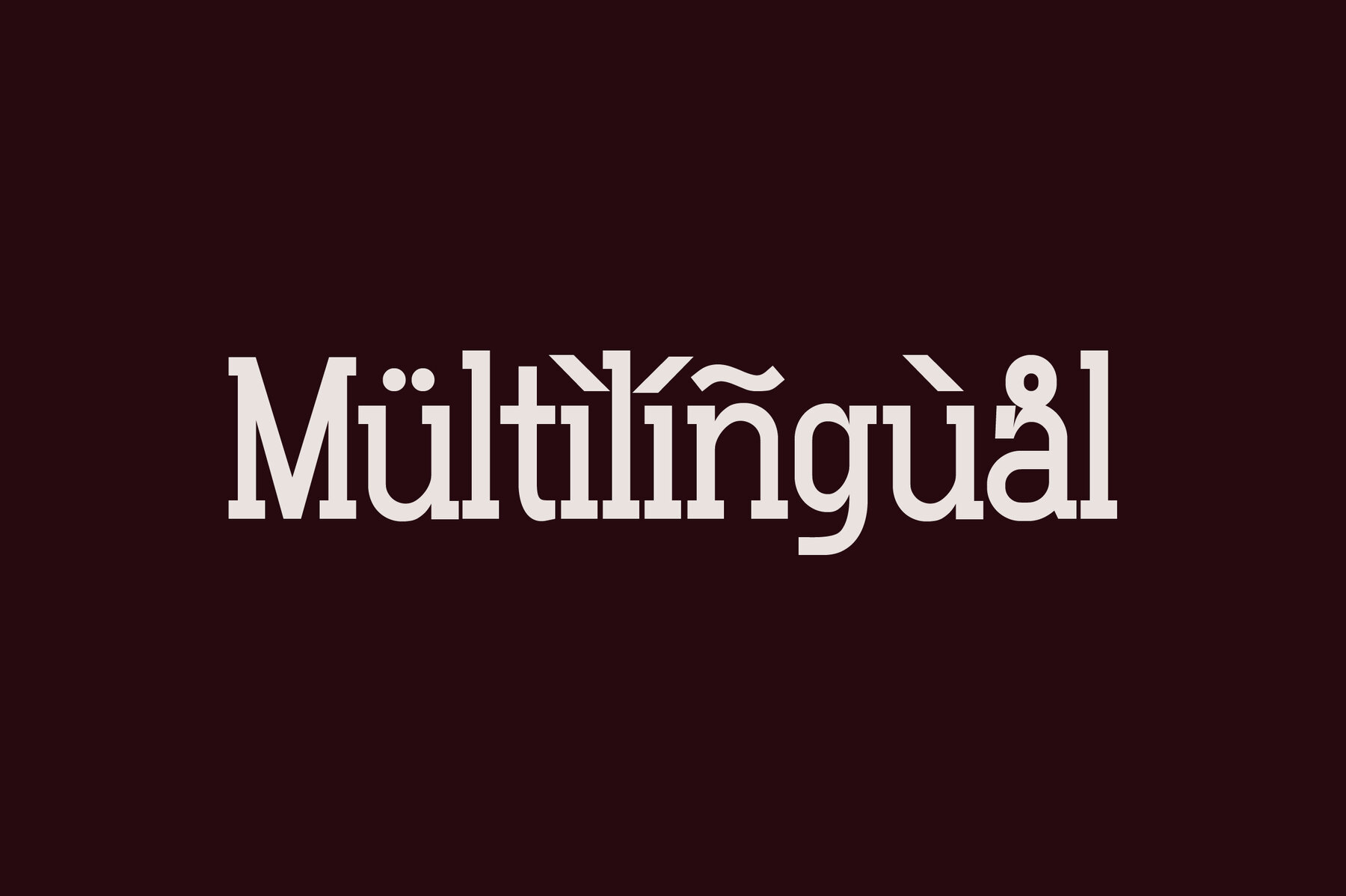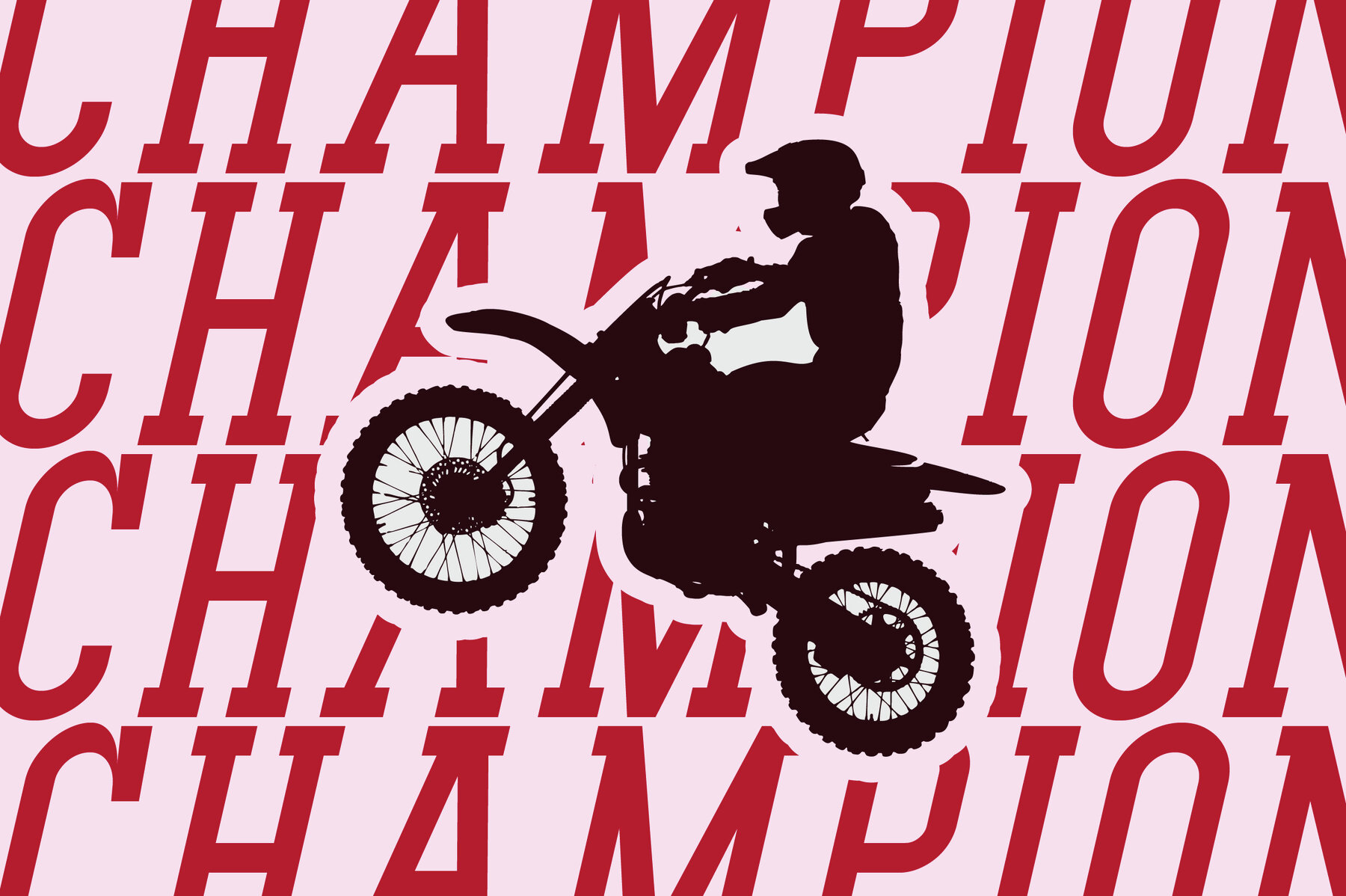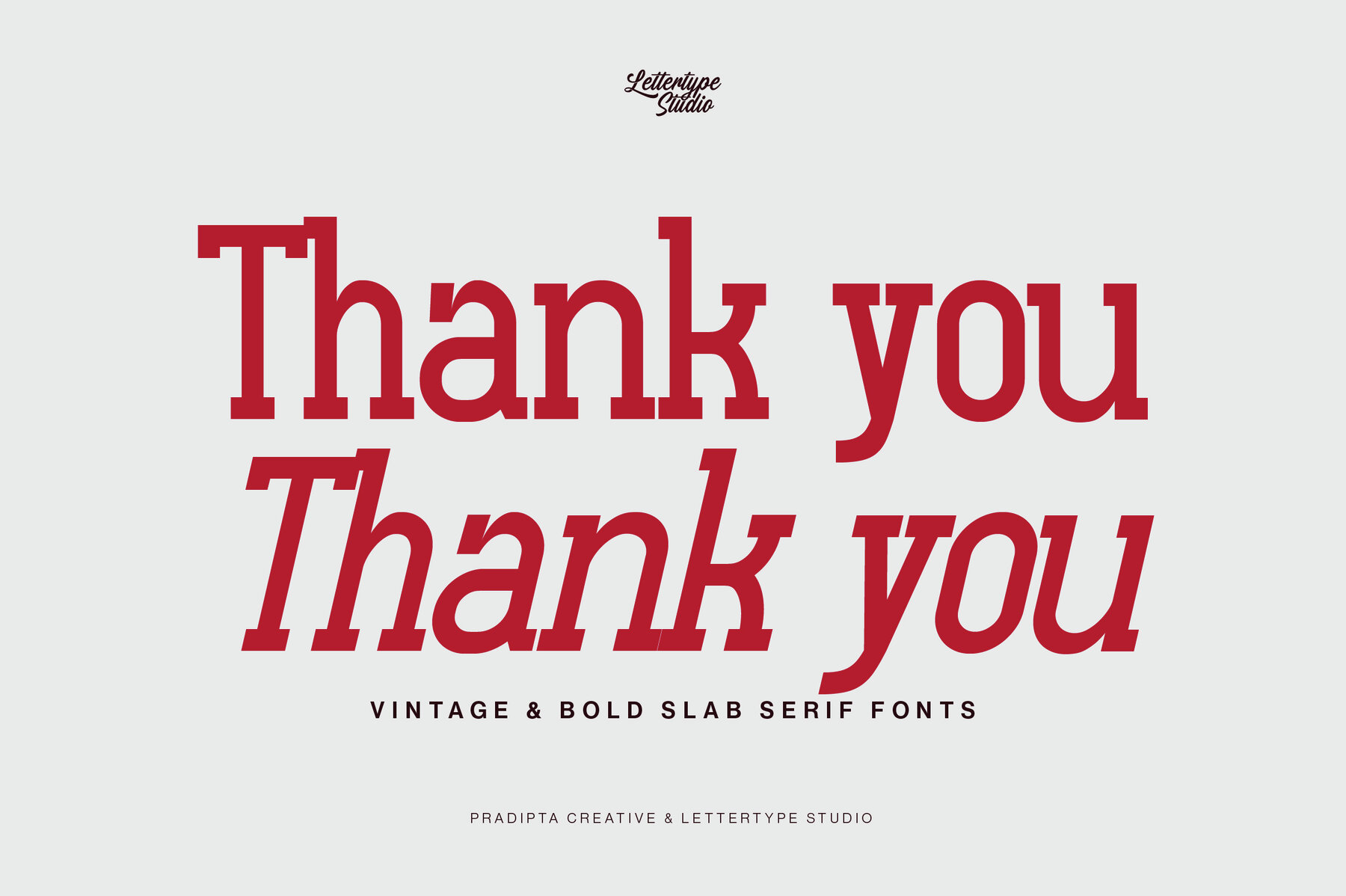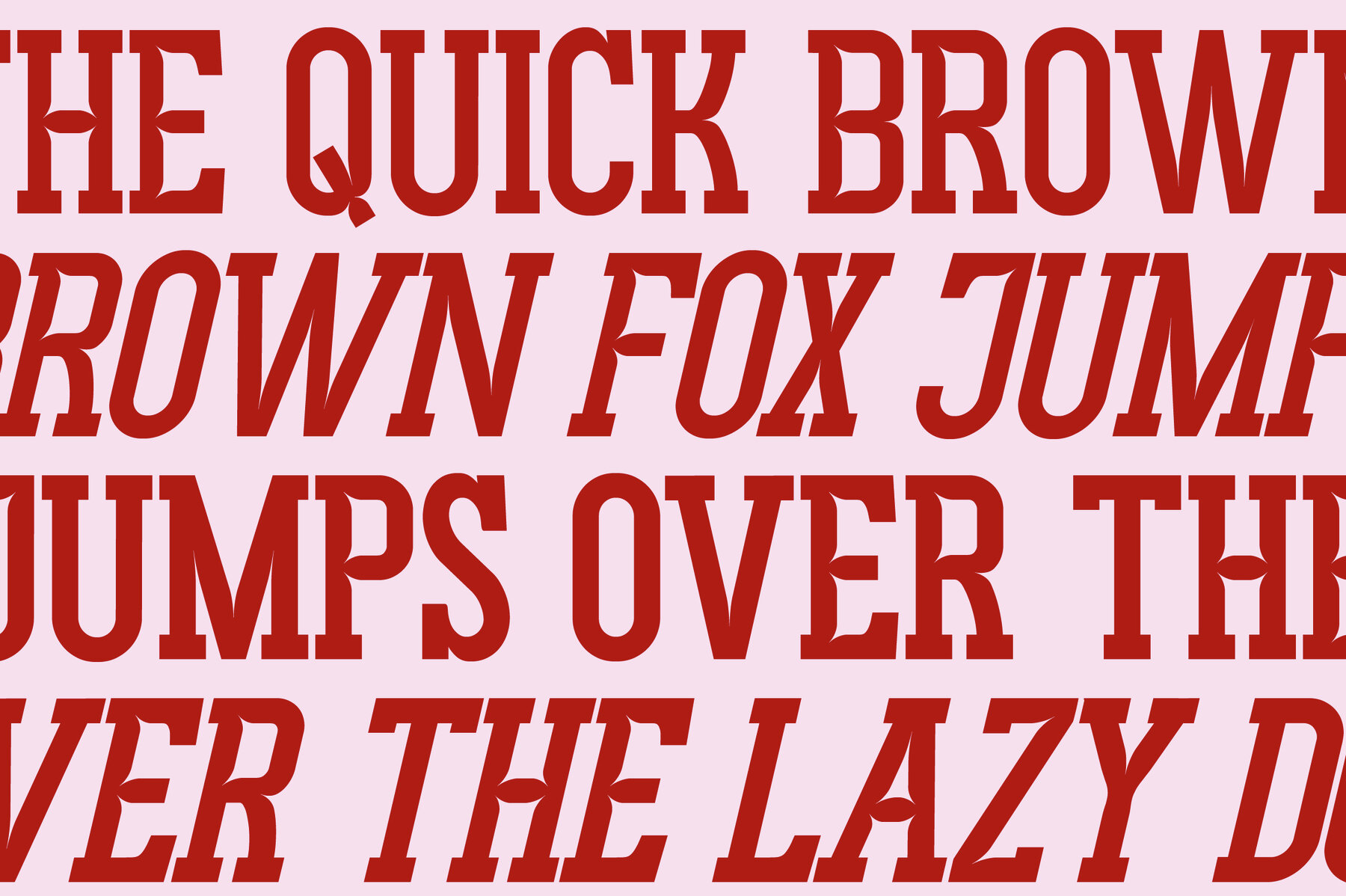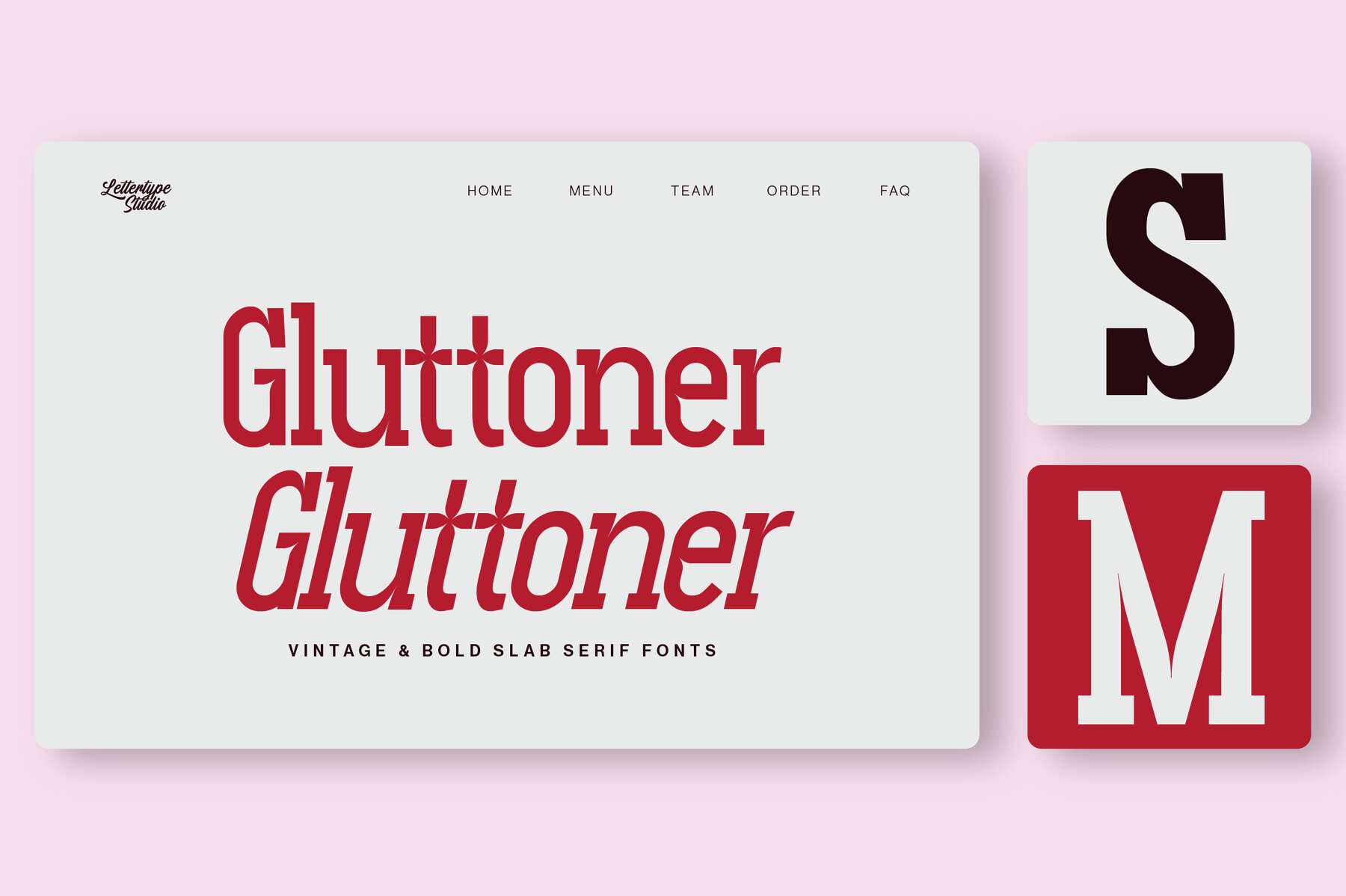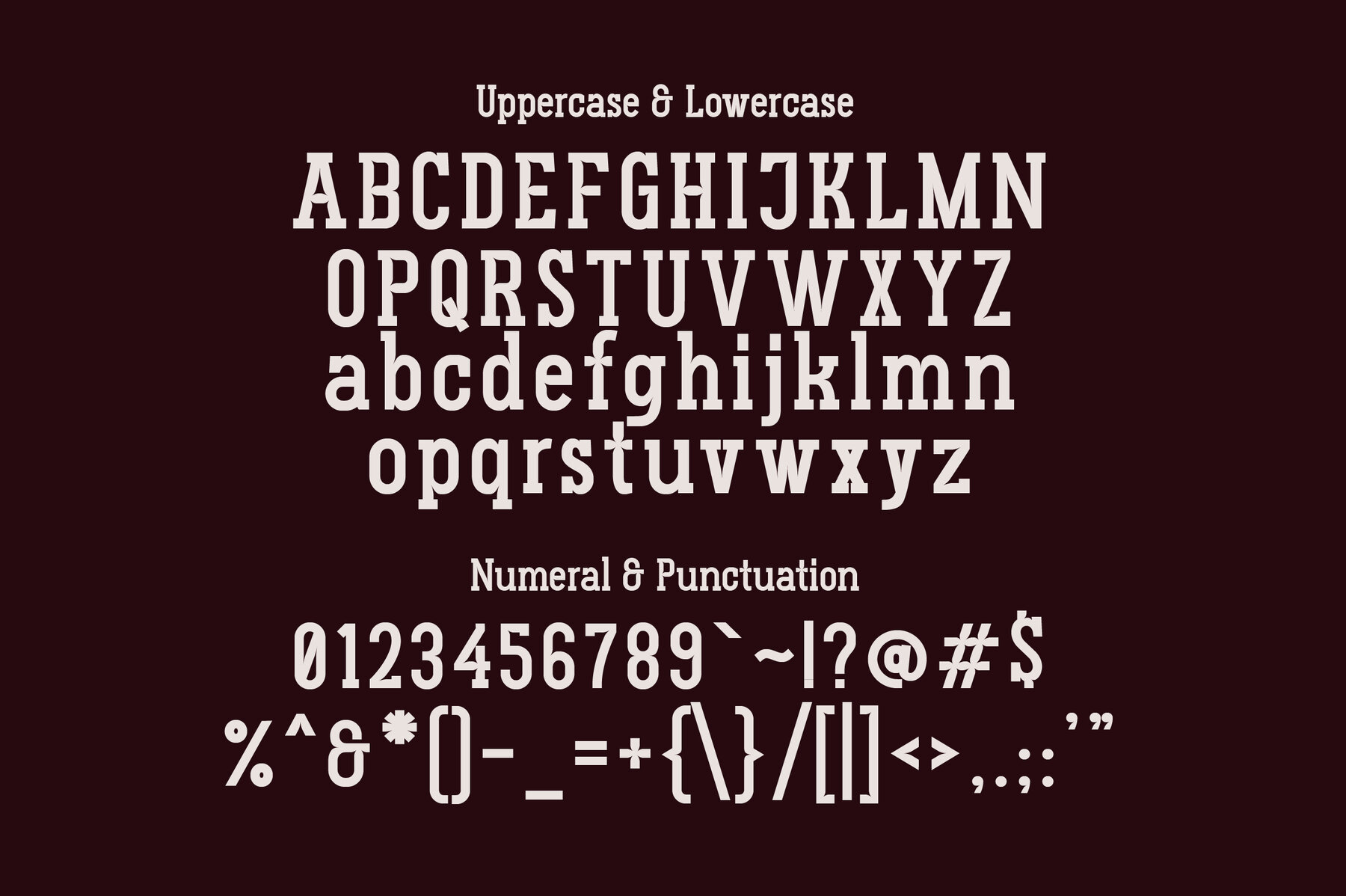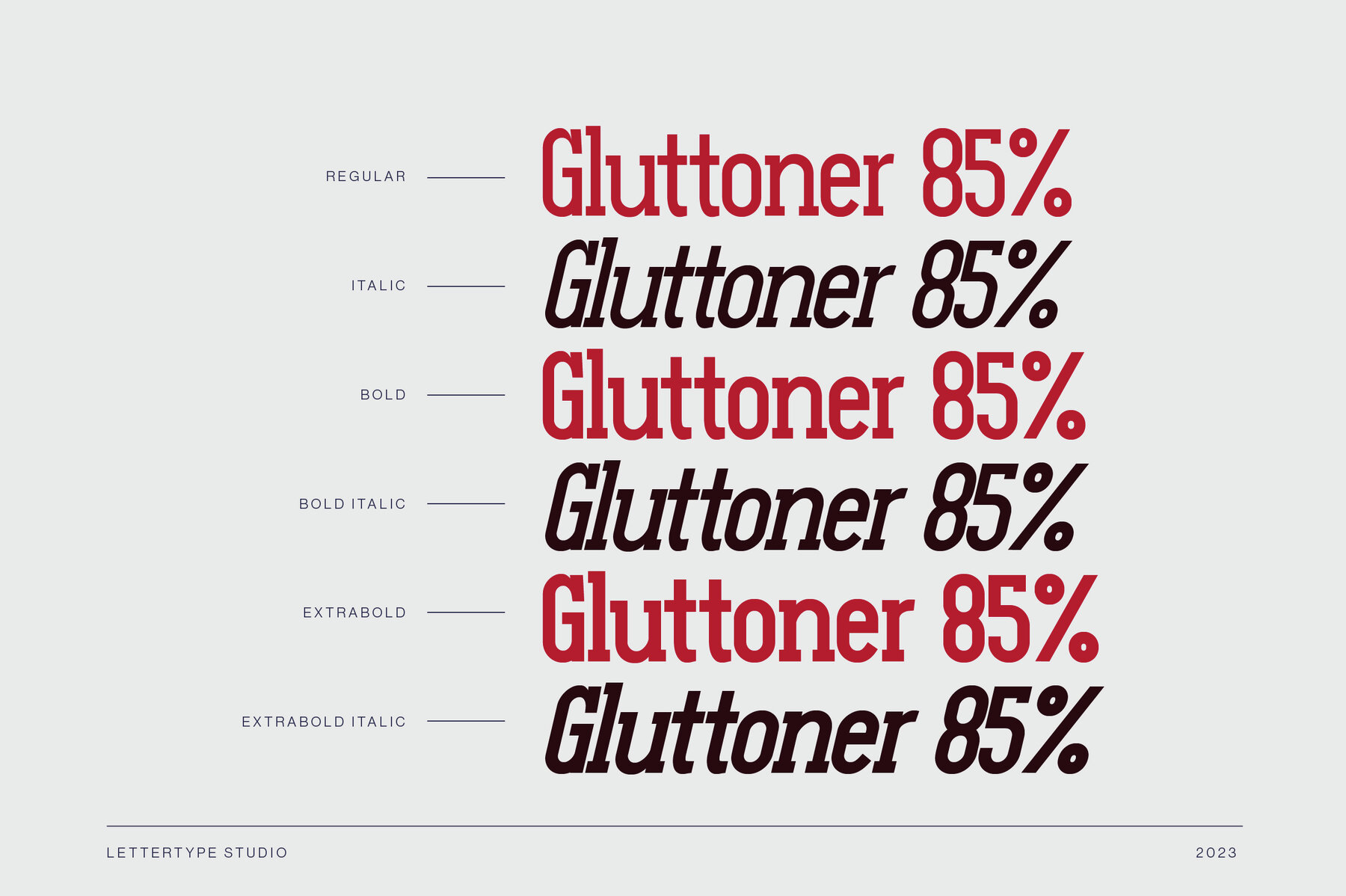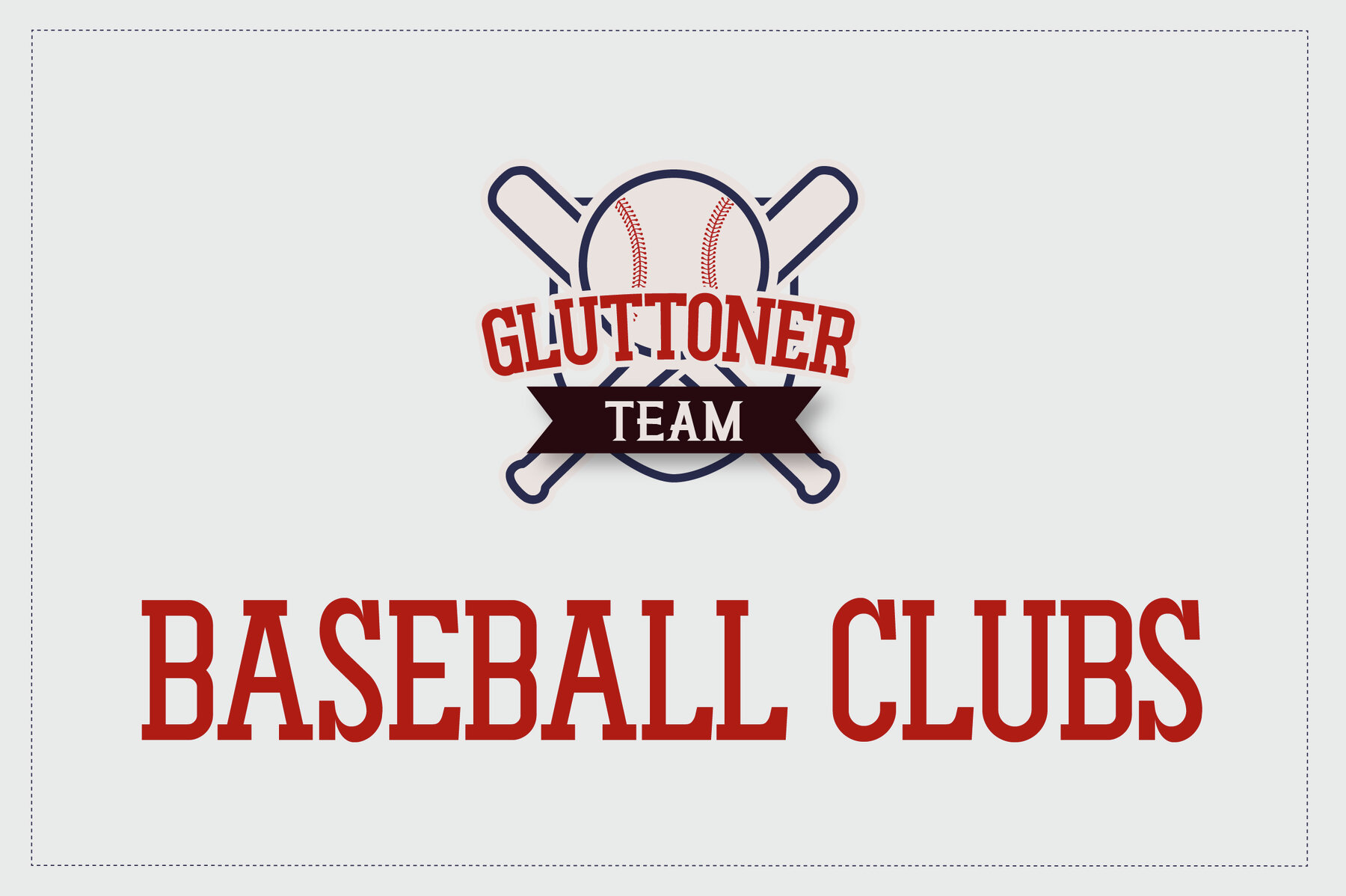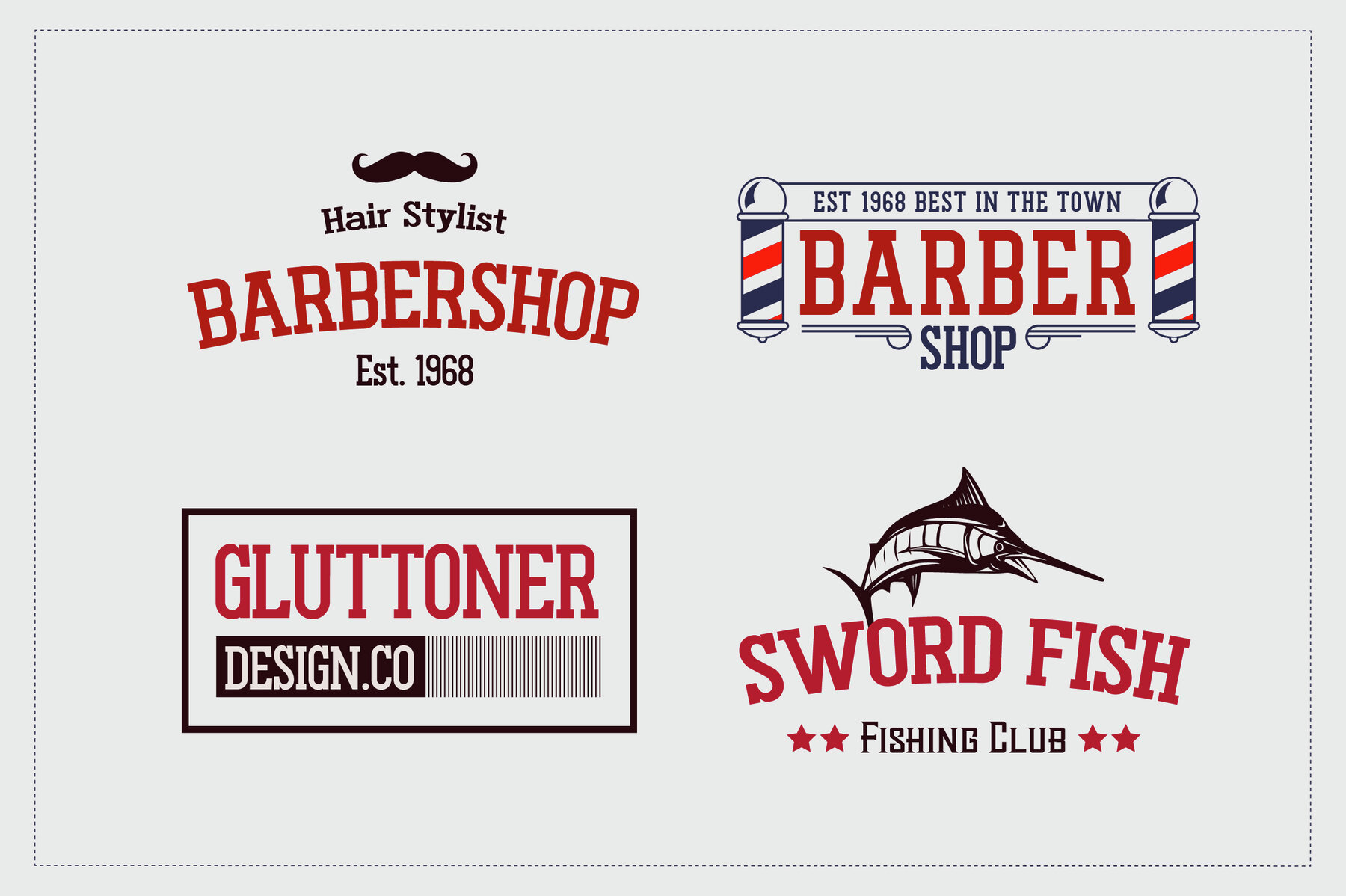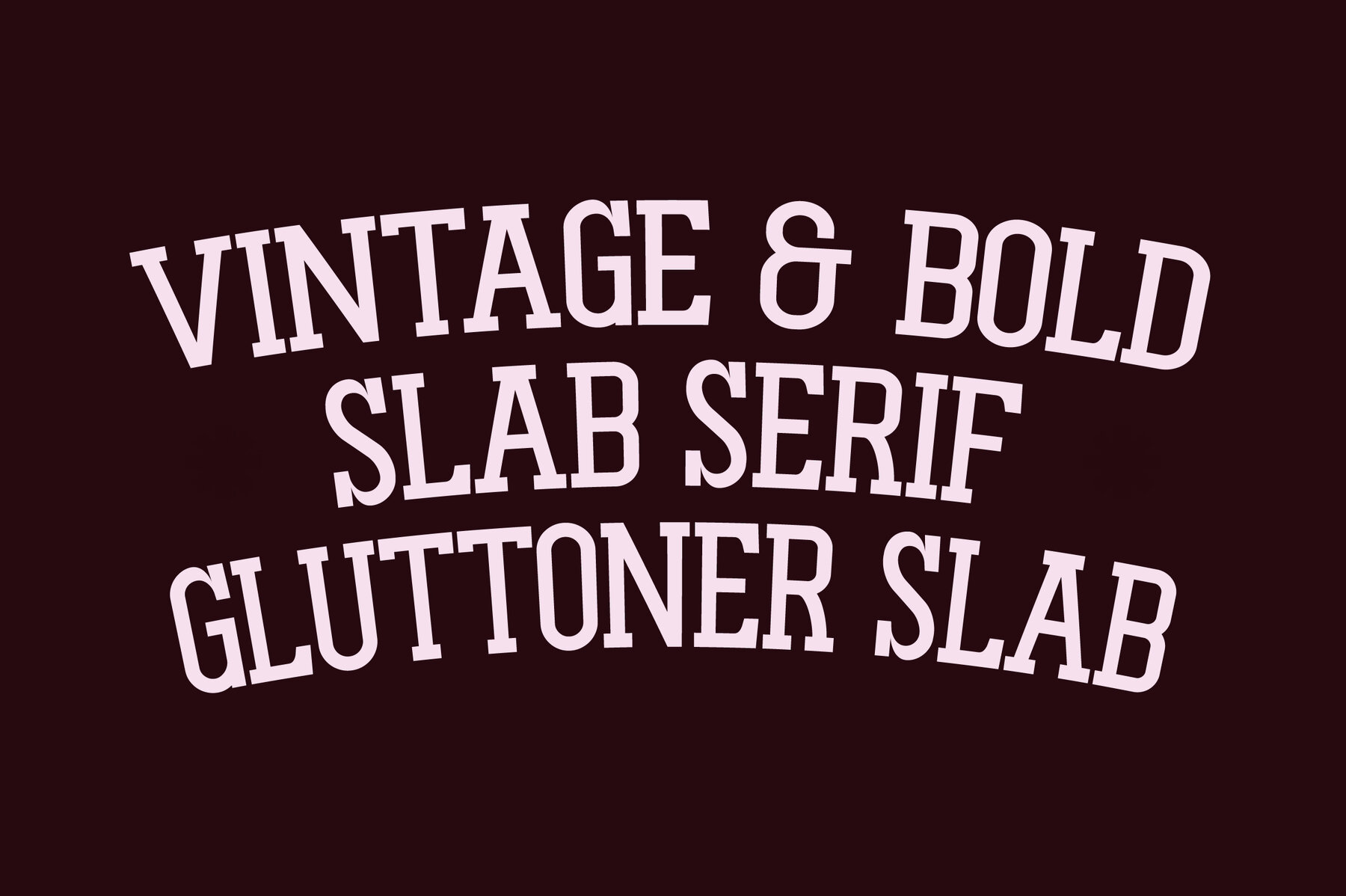
Gluttoners Slab Font
Gluttoners Slab is a striking slab serif font that captures the essence of urban culture with its bold and vintage appeal. This distinctive typeface is perfect for making a statement in any design project. Whether crafting logos, enhancing branding, or creating standout sports graphics, Gluttoners Slab offers a versatile solution. Its strong characters add impact to posters, editorial titles, headlines, and more.Gluttoners Slab: Bold and Vintage